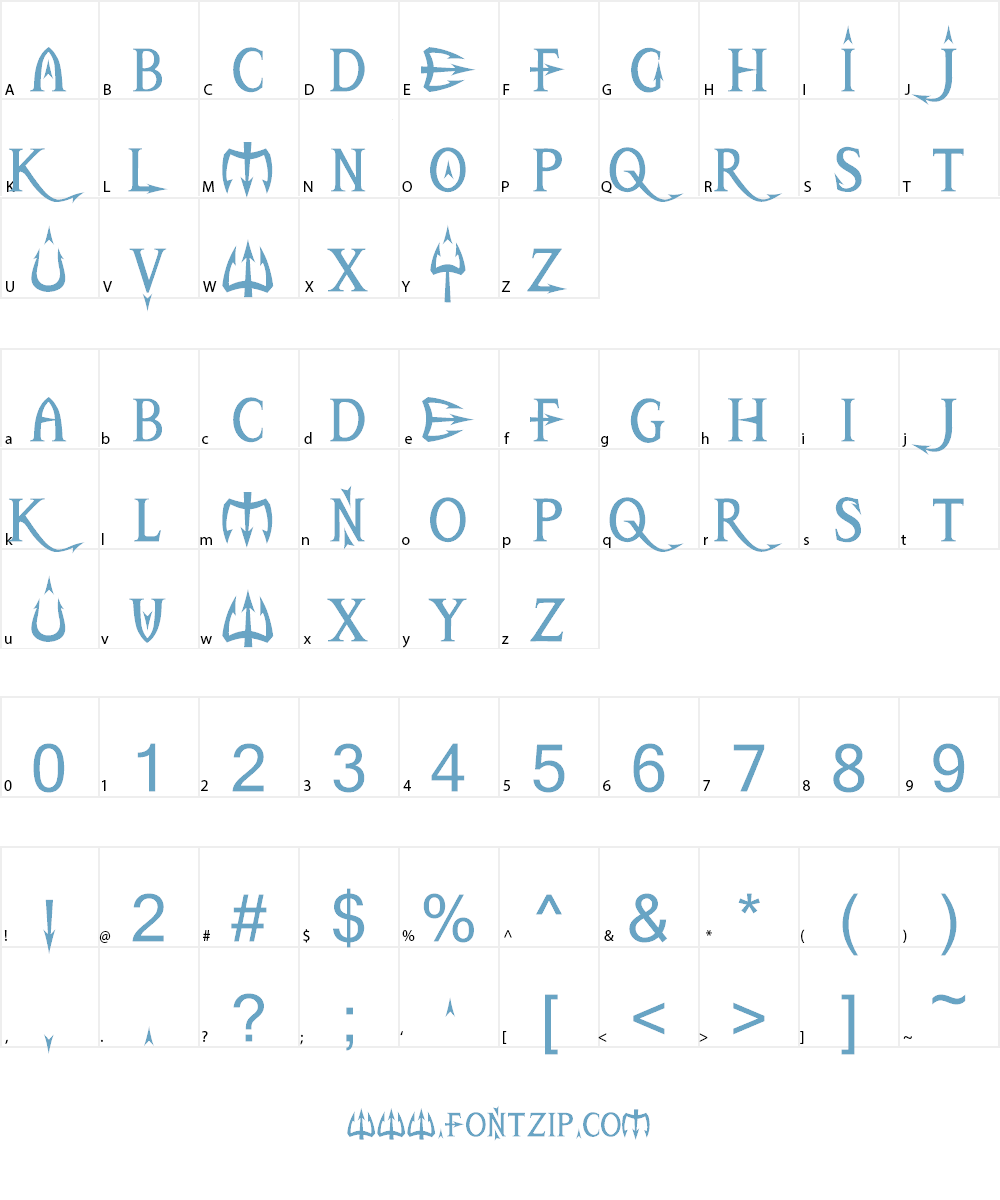
A decorative font, inspired by ... Poseidon! I have this project in my mind, to create fonts inspired by all 12 Gods of Olympus.
Includes Greek characters.